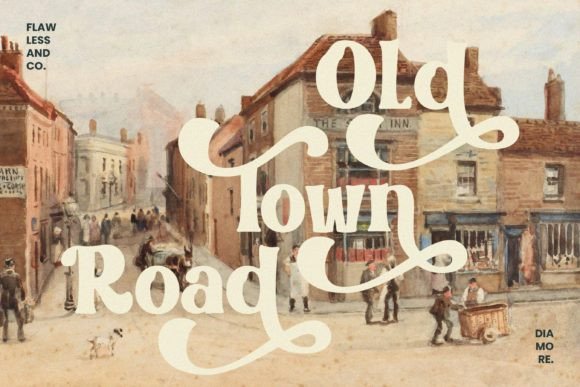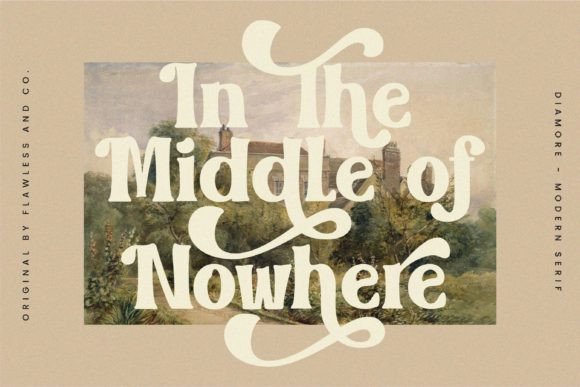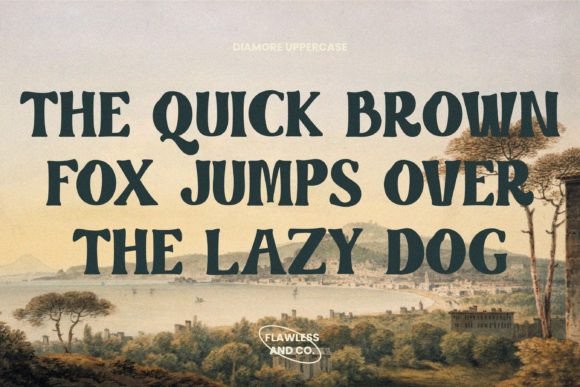
Introduction to Diamore Font
As you sit in front of your computer, staring at a blank canvas, the perfect font can be the key to unlocking your creativity. It’s that moment when everything falls into place, and your design begins to take shape. For designers, finding the right font can be a game-changer. And if you’re looking for something truly special, you might want to consider the Diamore Font.
| 👤 Author | Flawless And Co |
This gorgeous and elegant display font is a design resource that’s sure to add a touch of sophistication to any creative project. With its high-quality design and transparent background, Diamore Font is the perfect choice for designers who want to create something truly unique and eye-catching.
Key Features of Diamore Font
- High-quality, elegant design ideal for creative projects
- Perfect for use in graphic design, digital art, and other design resources
- Includes a wide range of characters, including Latin, Cyrillic, and Greek alphabets
Honest Review: Diamore Font
As a designer, I’m always on the lookout for high-quality design resources to elevate my creative projects. The Diamore Font is one such resource that caught my attention.
Here are some things that work well with the Diamore Font: ✨
- High-quality design: The font has a sleek and modern aesthetic that’s perfect for any creative project.
- Limited customization options: While the font itself is high-quality, the customization options are somewhat limited.
- Not suitable for all design projects: The font’s modern aesthetic may not be suitable for all design projects, particularly those with a more traditional or vintage feel.
Overall, I’m impressed with the Diamore Font. Its high-quality design and free download make it a valuable resource for designers. However, designers should be aware of the limitations and consider these when choosing the font for their project.
Tips for Getting the Most Out of Diamore Font
To maximize the benefits of Diamore Font, use it in conjunction with other design elements such as images, graphics, and colors. Experiment with different font sizes, styles, and colors to achieve the desired effect.
The Diamore Font is ideal for various design projects such as logos, brochures, business cards, and websites. It’s also perfect for creative projects such as invitations, posters, and social media graphics.